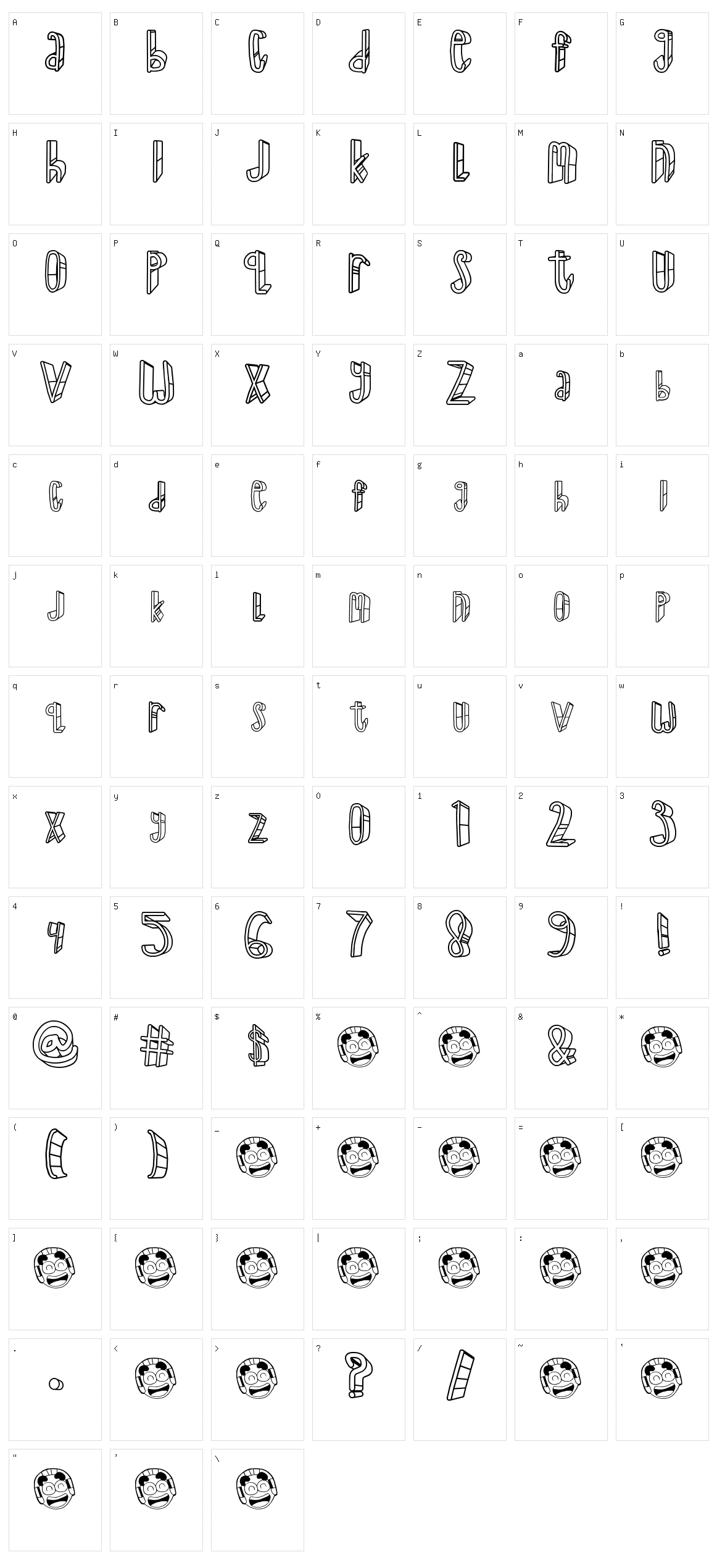
The free font The Super Ryal 2015 is carefully designed by The Docallisme - Amry Al Mursalaat, showcasing a thoughtful balance of creativity and usability and falls under the Cartoon font style. When you download the ZIP file, it contains only 401.9 KB of font files, making it lightweight and quick to download. Please review the license details below to understand permitted usage and distribution rights. If license information is not available, we recommend using this font for personal projects only or contacting the author directly for commercial usage permissions.